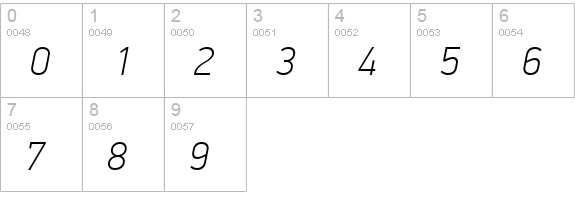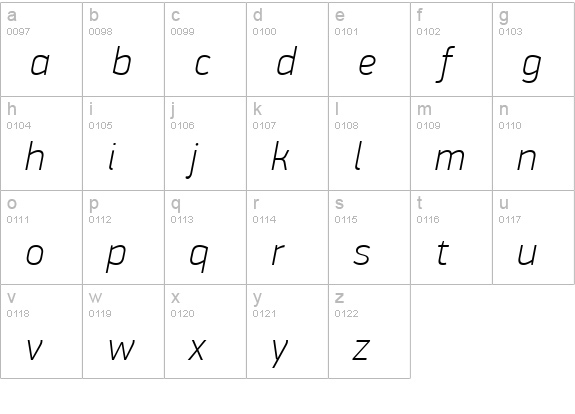
PFDinDisplayPro-ThinItalic Font Details
PFDinDisplayPro-ThinItalic is a sleek and elegant font that exudes sophistication and modernity. With its thin and italic design, this font is perfect for adding a touch of style to any project. Whether you're designing a website, creating a logo, or working on a print project, PFDinDisplayPro-ThinItalic will make your text stand out. The best part? This font is available for free download at FontsMarket.com. You can easily access this versatile font and use it in your projects without breaking the bank. So why wait? Elevate your designs with PFDinDisplayPro-ThinItalic today and make a lasting impression with its unique and eye-catching aesthetic.